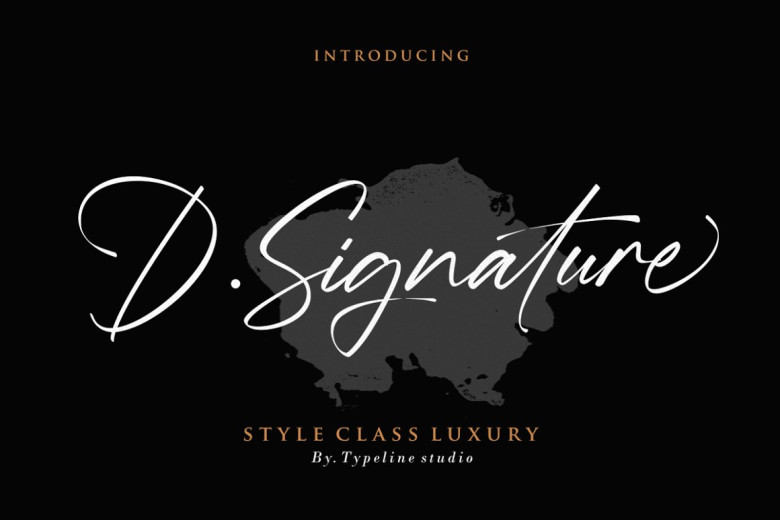
D.Signature Font
D.Signature font is specifically tailored for writing company and personal names, featuring few styles yet remaining very classy.
D.Signature provides a full set of hand-lettered uppercase and lowercase alphabets, numerals and ligatures in uppercase letters with ending swashes to give a realistic handwritten appearance in lowercase letters. What will you find?